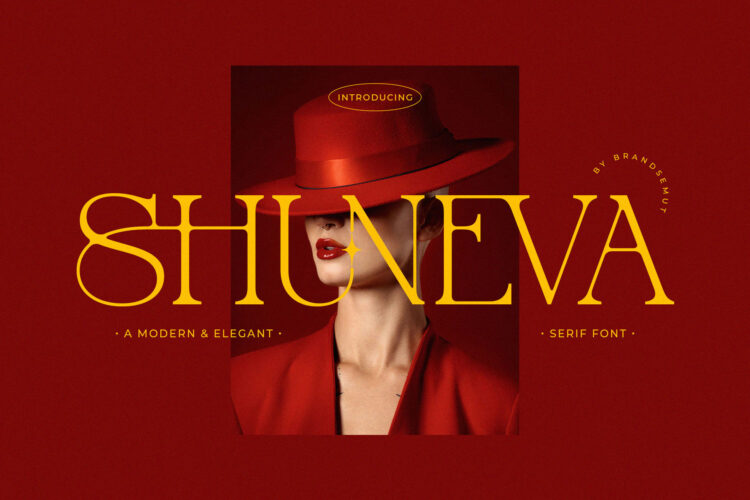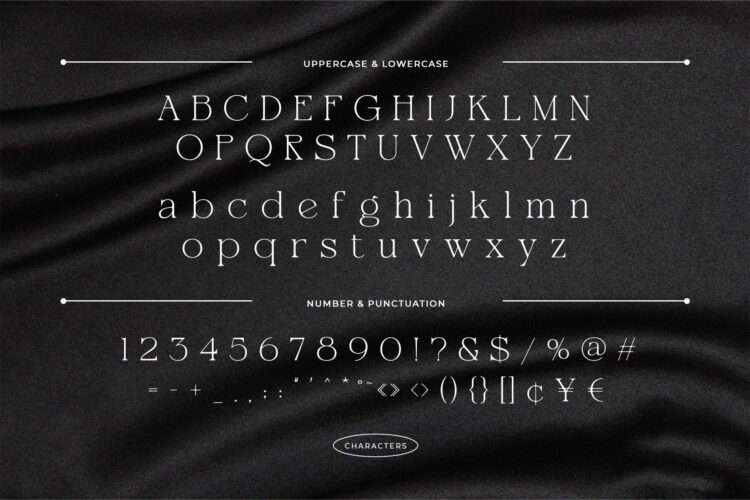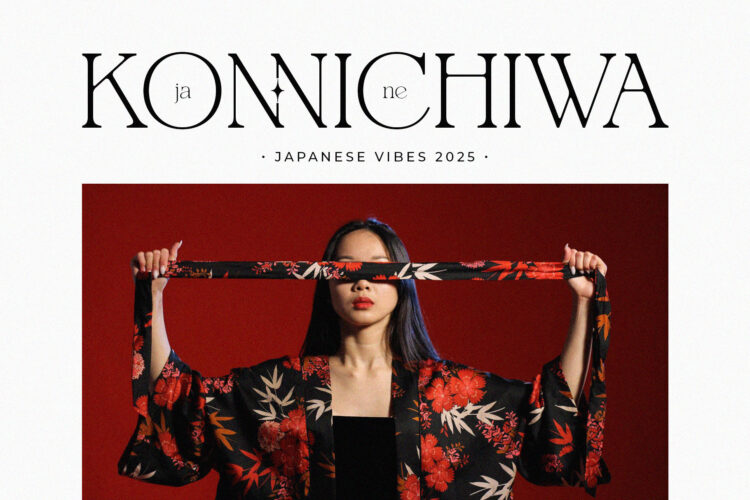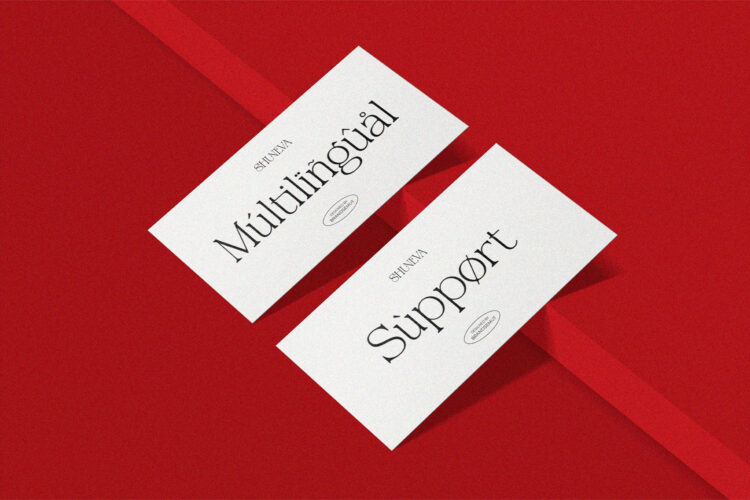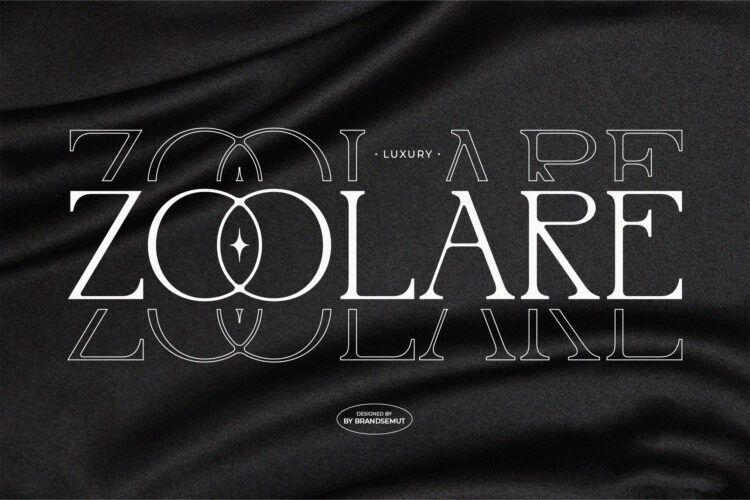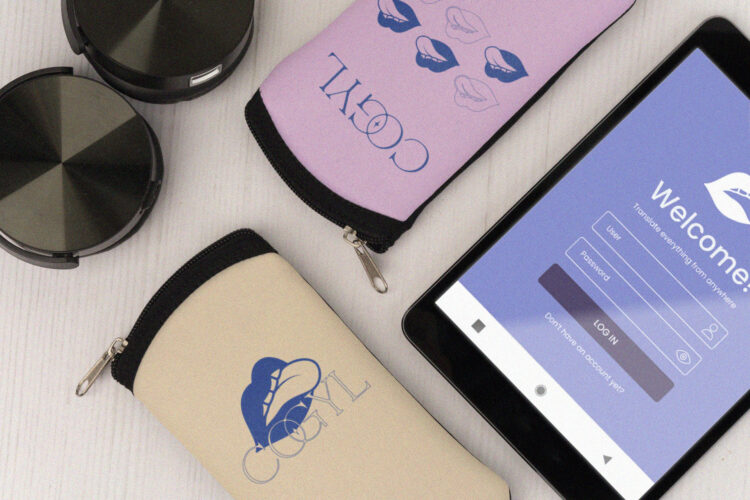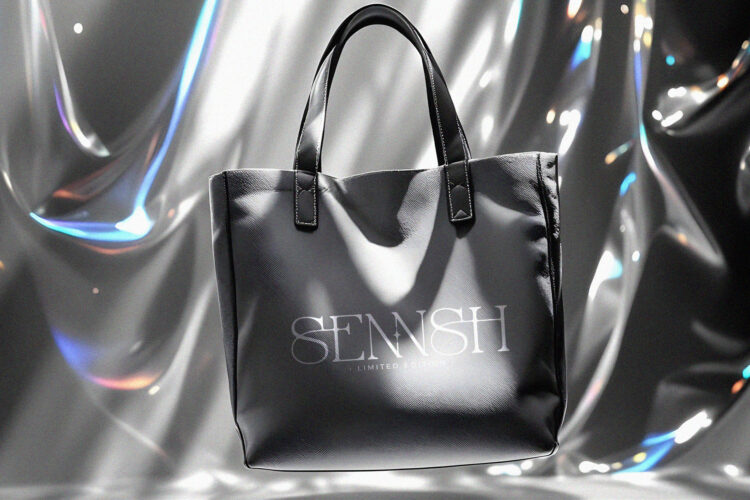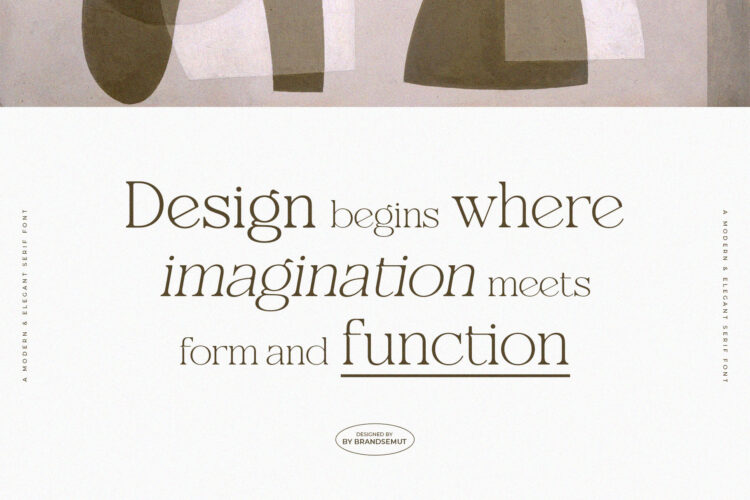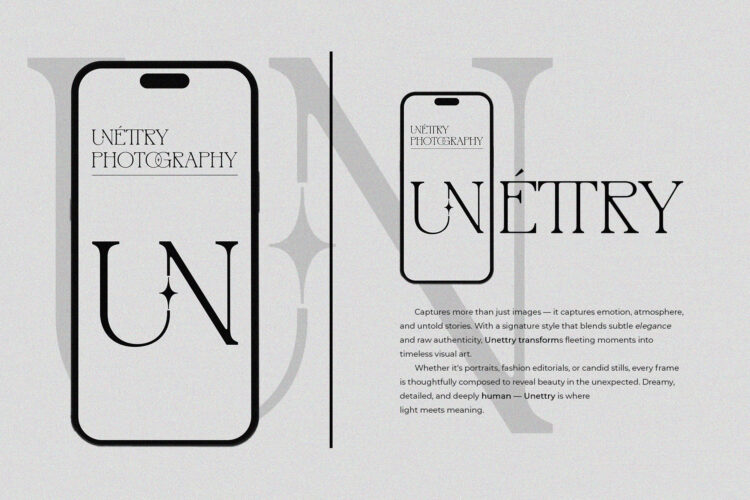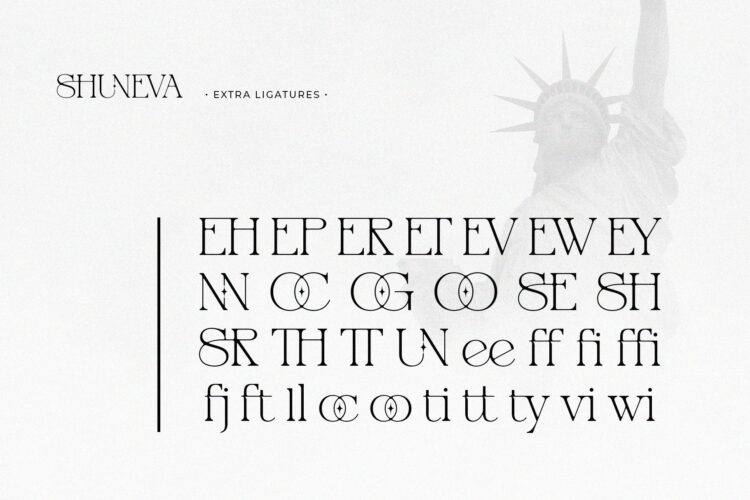
Shuneva is a modern and elegant ligature serif font crafted to bring sophistication, style, and timeless class into your design projects. Featuring refined letterforms, artistic ligatures, and sharp serif details, Shuneva is the perfect typeface for those who seek a bold, luxurious, and professional look.
With its stylish alternates and creative ligatures, Shuneva offers endless design possibilities—making it highly versatile for branding, editorial layouts, packaging, fashion, and digital projects. Its strong yet graceful structure ensures excellent readability while maintaining a premium and distinctive personality.
– Complete uppercase & lowercase characters
– Numerals, punctuation, and multilingual support
– Elegant ligatures & stylish alternates
🎯 Perfect For:
– Luxury Branding & Logo Design – Fashion, beauty, jewelry, boutique, and premium labels.
– Editorial & Print – Magazines, book covers, headlines, and advertising layouts.
– Packaging Design – Cosmetics, perfume, wine, and other high-end product packaging.
– Digital & Social Media – Eye-catching Instagram posts, website headers, and marketing visuals.
– Creative Typography Projects – Invitations, posters, and classy merchandise.
🌟 Why Choose Shuneva?
– Elegant Ligatures & Alternates – Add uniqueness and artistic flair to your typography.
– Modern & Timeless Style – Perfect balance between luxury and contemporary design.
– Professional Quality – Carefully designed with premium details and multilingual support.
Shuneva is more than just a serif font—it’s a statement of elegance and creativity. Perfect for designers, entrepreneurs, and brands who want to leave a lasting impression with stylish, professional typography.
Shuneva – Modern Elegant Serif Font